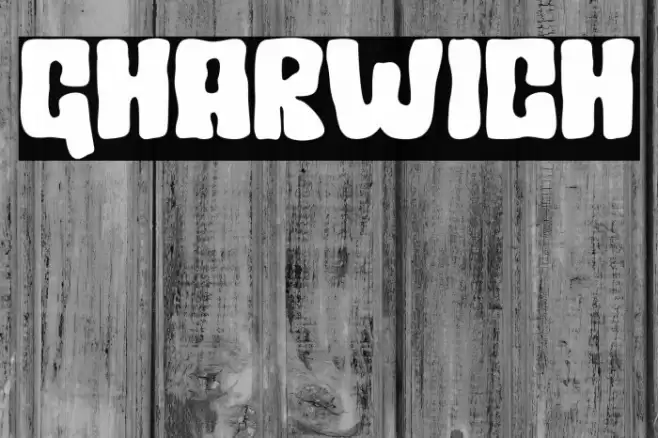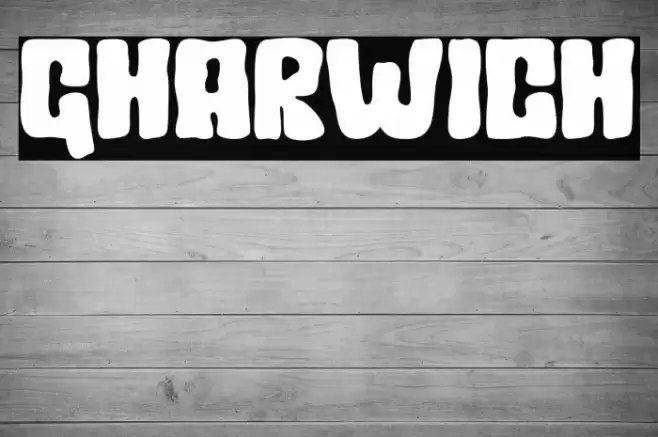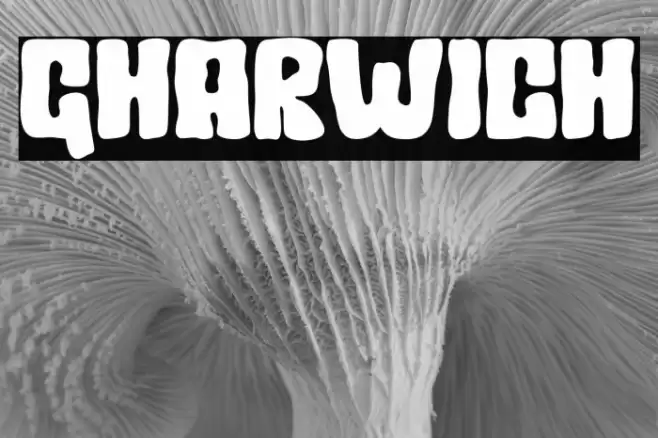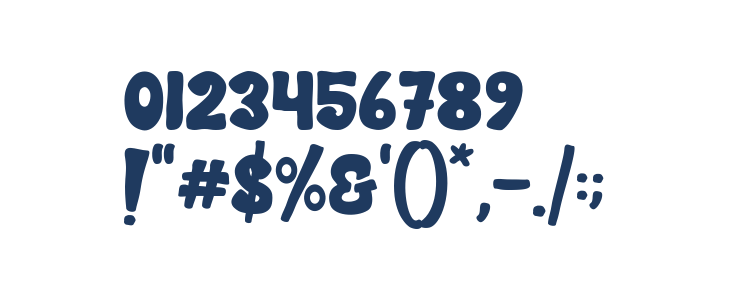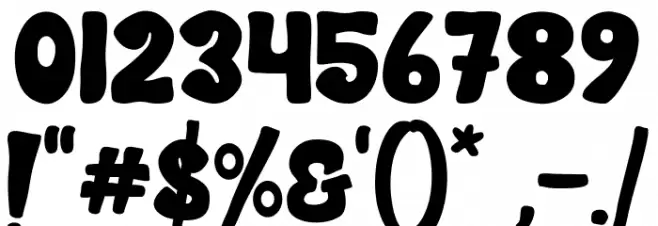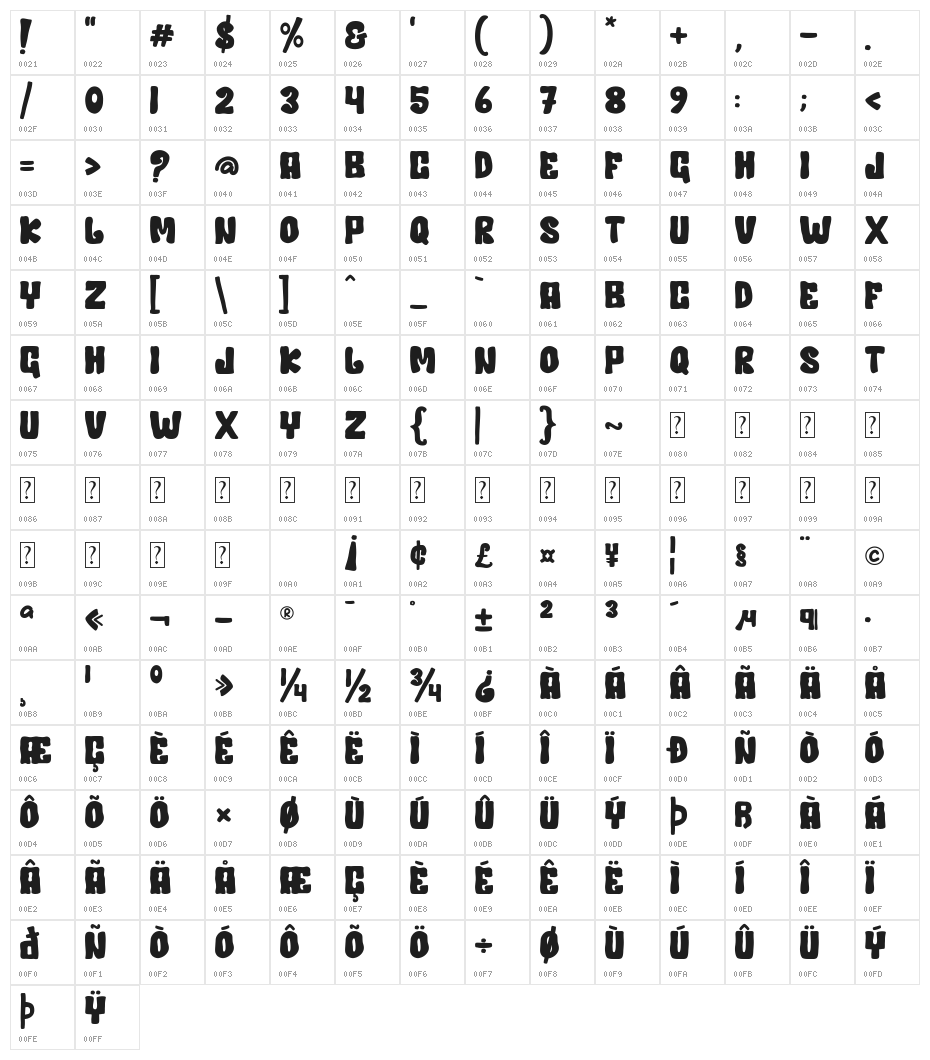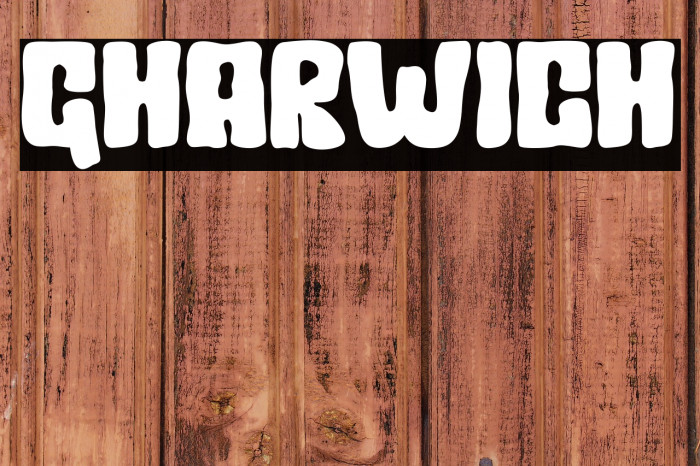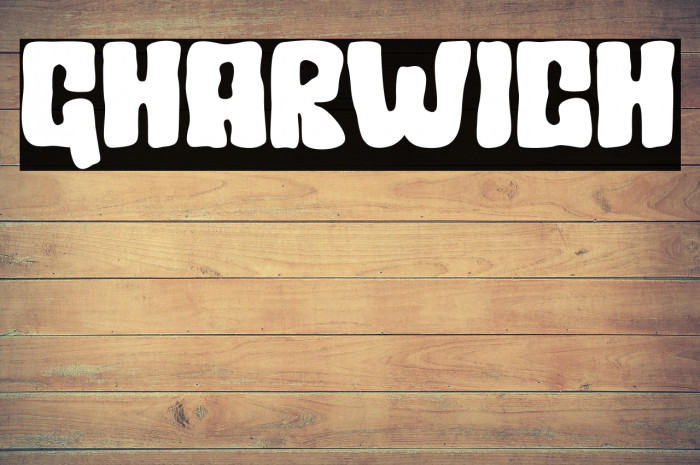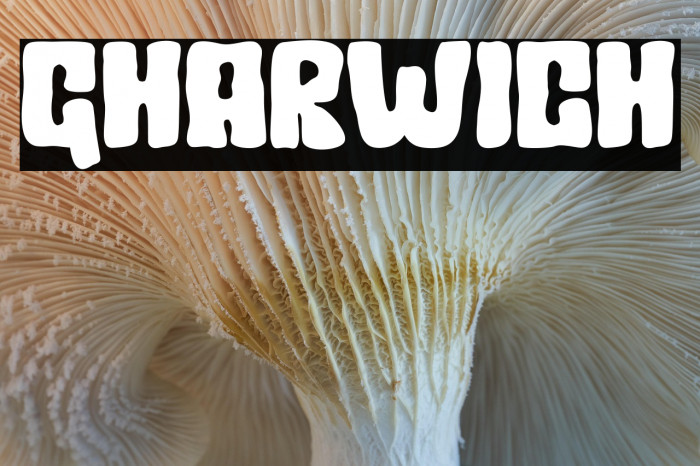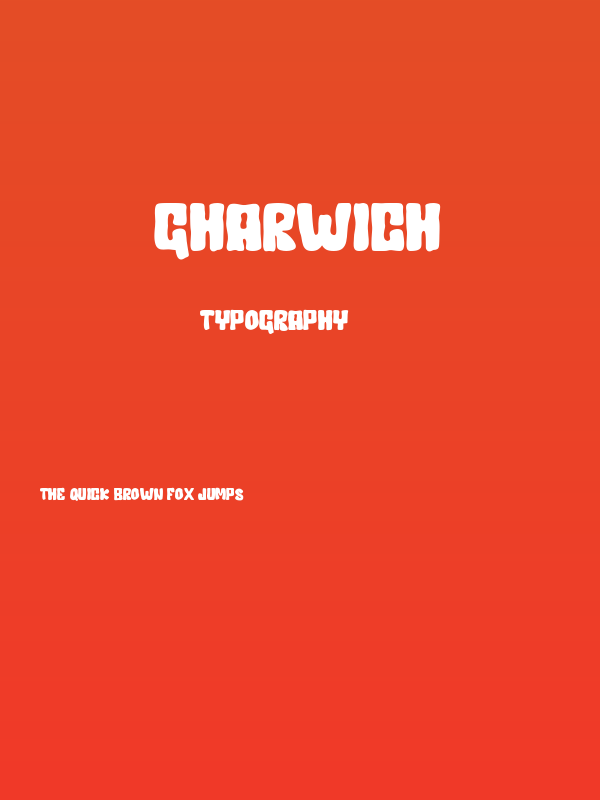
Gharwich Font
Gharwich Description
This font features a bold and playful design with rounded edges and a chunky appearance. The characters are uniformly thick, giving it a strong presence and making it highly legible from a distance. The style is reminiscent of retro or vintage signage, with a touch of whimsy that adds character to any text. The numbers and special characters maintain the same boldness, ensuring consistency across all elements. This font is perfect for creating eye-catching headlines or logos that require a fun and approachable feel.
A bold, playful font with rounded edges and a vintage feel from Regular fonts.
- Font: Gharwich
- Proposed Projects: Ideal for retro-themed posters, playful branding, children's book covers, and eye-catching headlines.
- Overall Style: Vintage